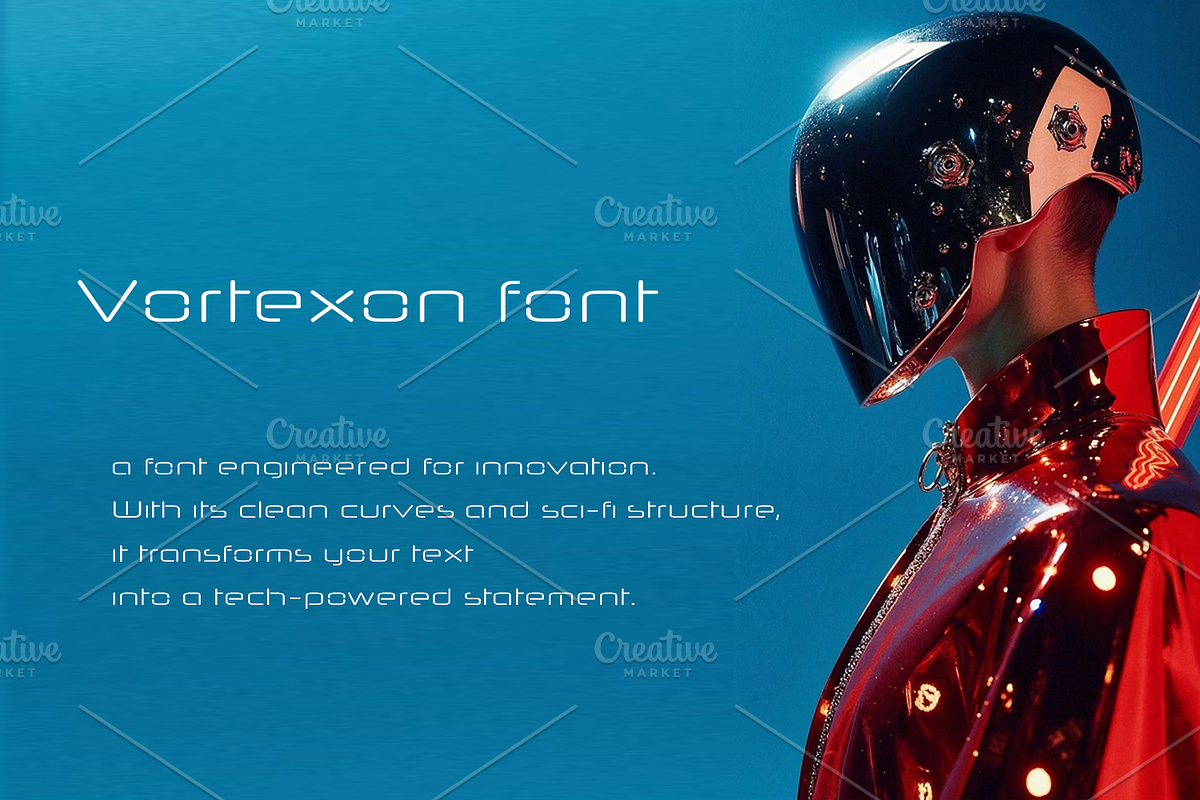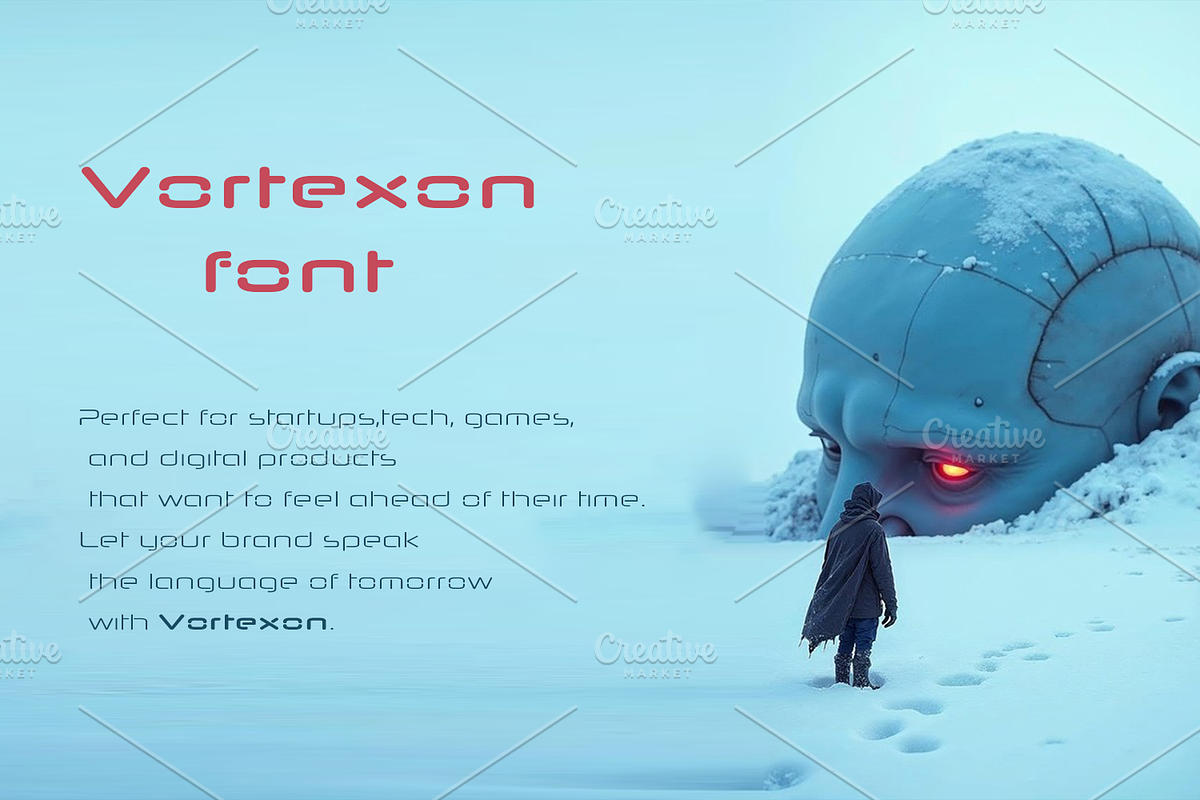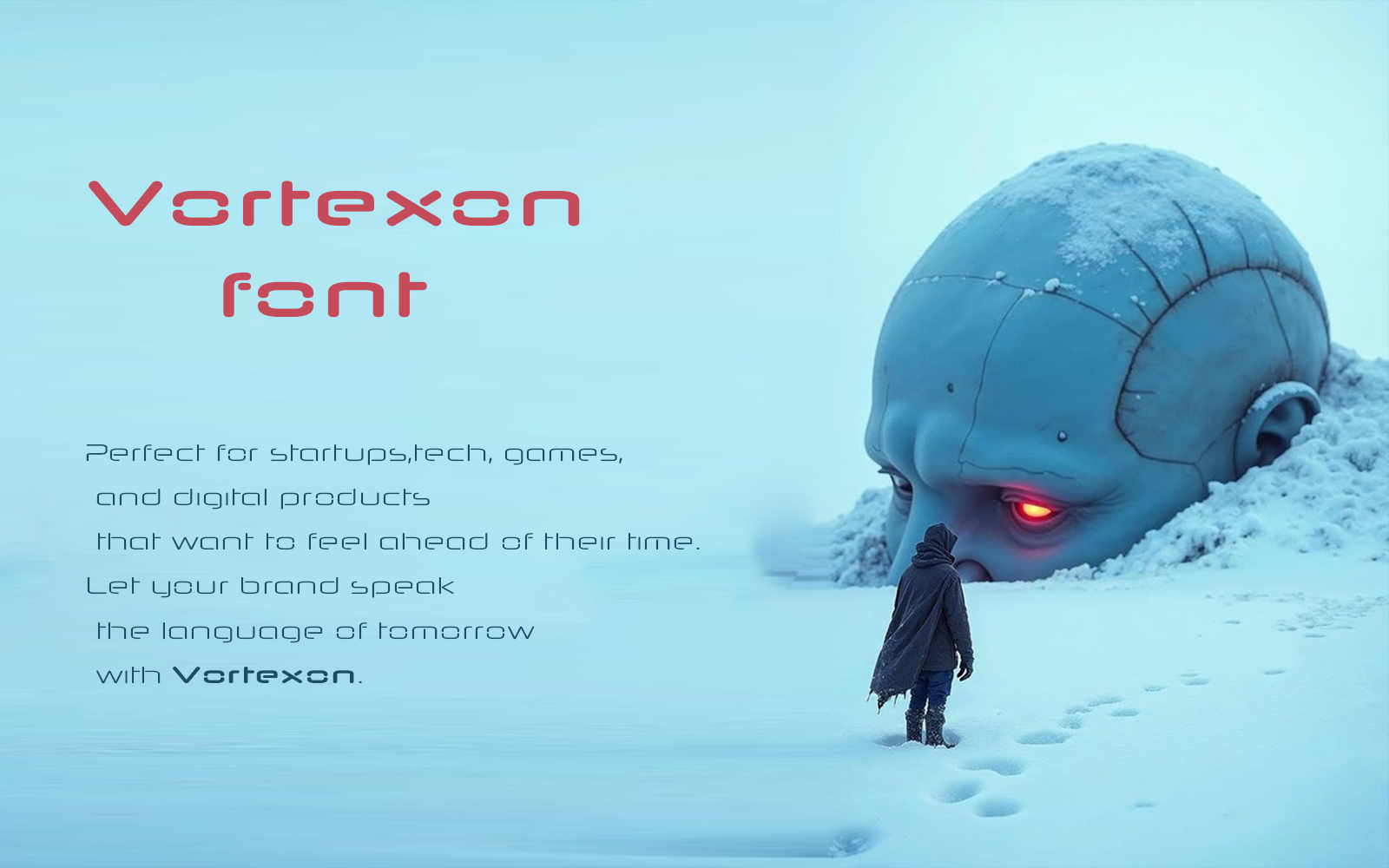
Vortexon font-Regular-066-25
Step into the future with Vortexon – a font engineered for innovation.
With its clean curves and sci-fi structure, it transforms your text into a tech-powered statement.
Perfect for startups, games, and digital products that want to feel ahead of their time.
Let your brand speak the language of tomorrow – with Vortexon.